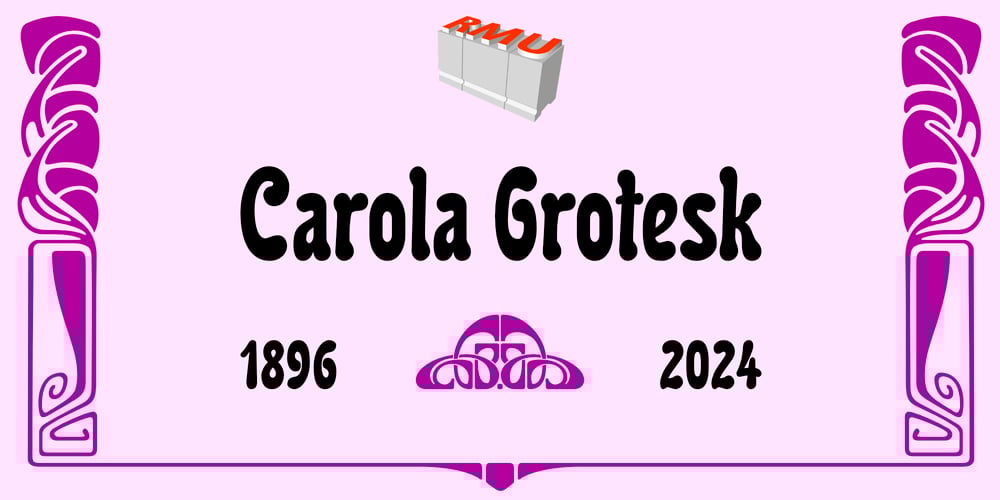
Carola Grotesk Font Family was designed by Ralph M. Unger and published by RMU. Carola Grotesk contains 1 styles and family package options. Carola Grotesk, a 1896 Berthold in-house typeface, was carefully redrawn und redesigned for modern use. The letter E and its sisters as well as the letter H have alternatives. It is recommended to activate the discretionary ligatures OT-feature. The keys product [ ∏ ] and pi [ π ] are occupied by frame-making corners.